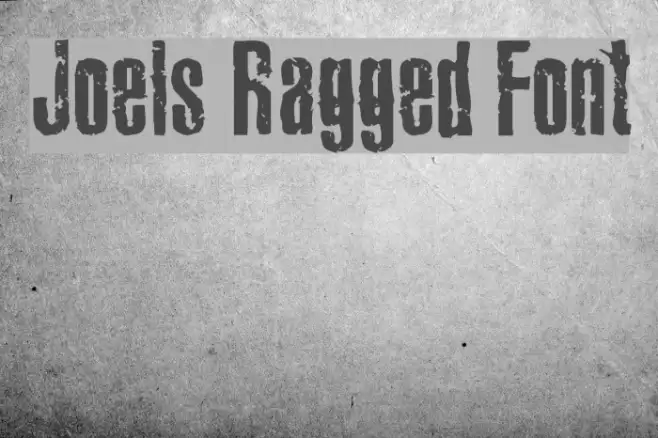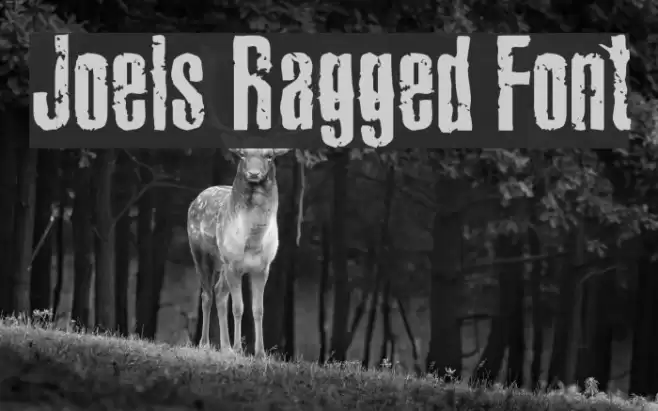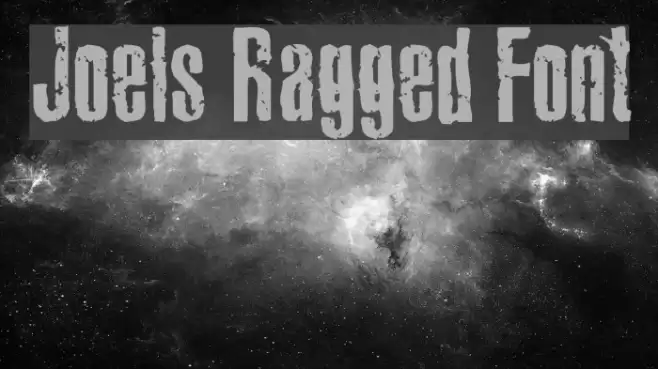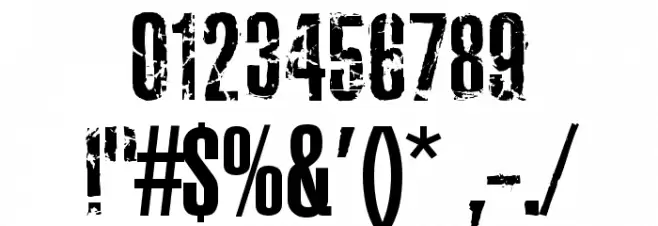
Joels Ragged Font Font
Joels Ragged Font Description
This font features a rugged, distressed appearance with a bold and impactful style. Each character is uniquely textured, giving it a worn and weathered look, reminiscent of vintage posters or grunge designs. The uppercase and lowercase letters maintain a consistent height and width, while the numbers and special characters share the same distressed aesthetic. This font's rough edges and irregular patterns create a dynamic and eye-catching effect, making it ideal for projects that require a bold statement or an edgy, artistic touch.
A rugged, distressed font with a bold, impactful style and textured appearance from Distorted Eroded fonts.
- Proposed Projects: Ideal for album covers, posters, branding for edgy products, or any design needing a grunge or vintage feel.
- Overall Style: Vintage, Grunge